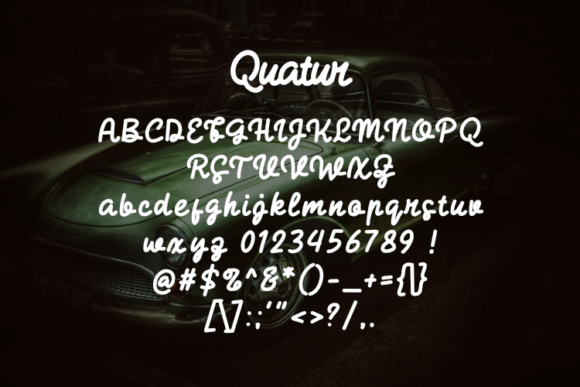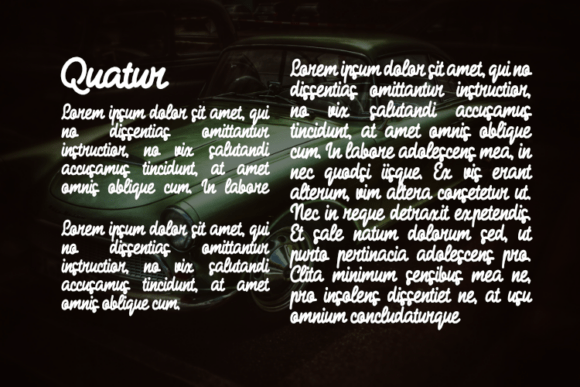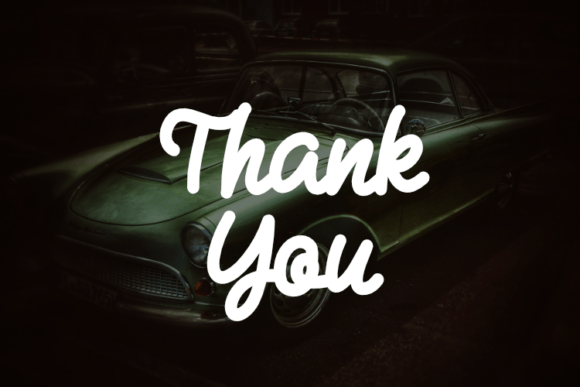
Introduction to Quatur Font
Discover the charm of Quatur, a versatile font that effortlessly enhances any design project.
Adding personality to apparel designs like t-shirts, or bringing a unique touch to a range of other products, it adapts harmoniously to all design aesthetics With seamless compatibility across all software platforms, Quatur ensures a smooth user-experience.
Key Features of Quatur Font
Why Choose Quatur Font?
Quatur Font offers exceptional quality and versatility, making it a valuable addition to your design toolkit. Whether you’re creating for personal projects or commercial use, Quatur Font delivers professional results.